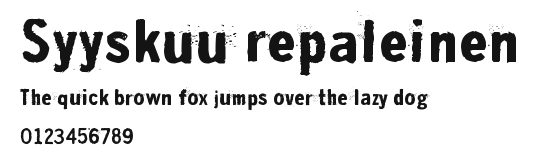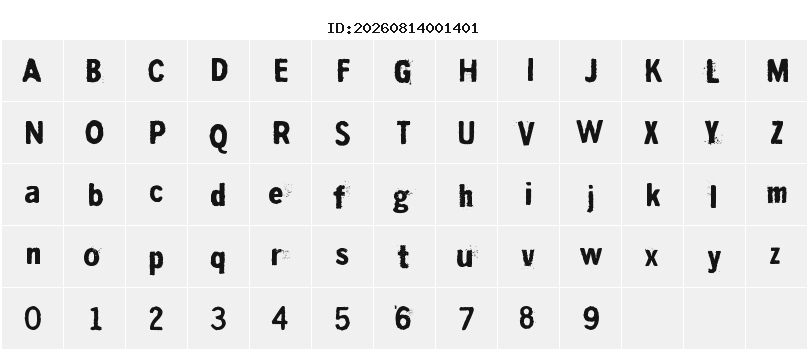
• Font Name: Syyskuu repaleinen
• Designer: junkohanhero
About Syyskuu repaleinen.ttf
Syyskuu repaleinen.ttf is a modern, elegant sans-serif font designed for ultimate readability and visual harmony. Perfect for branding, headlines, web design, and print materials.